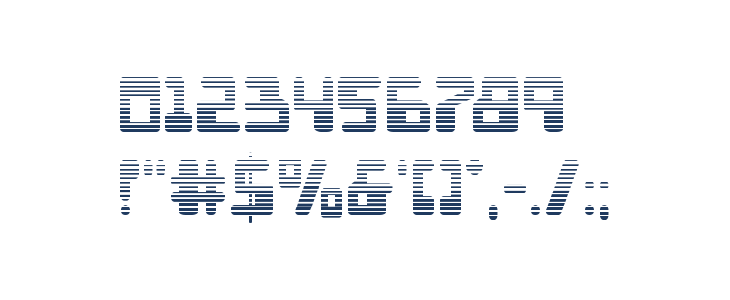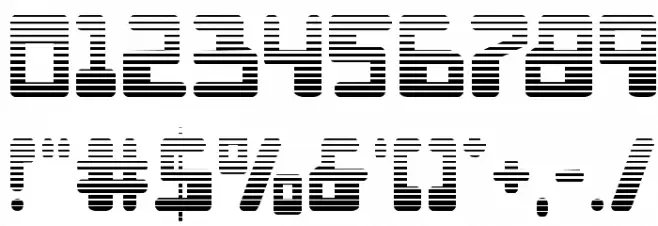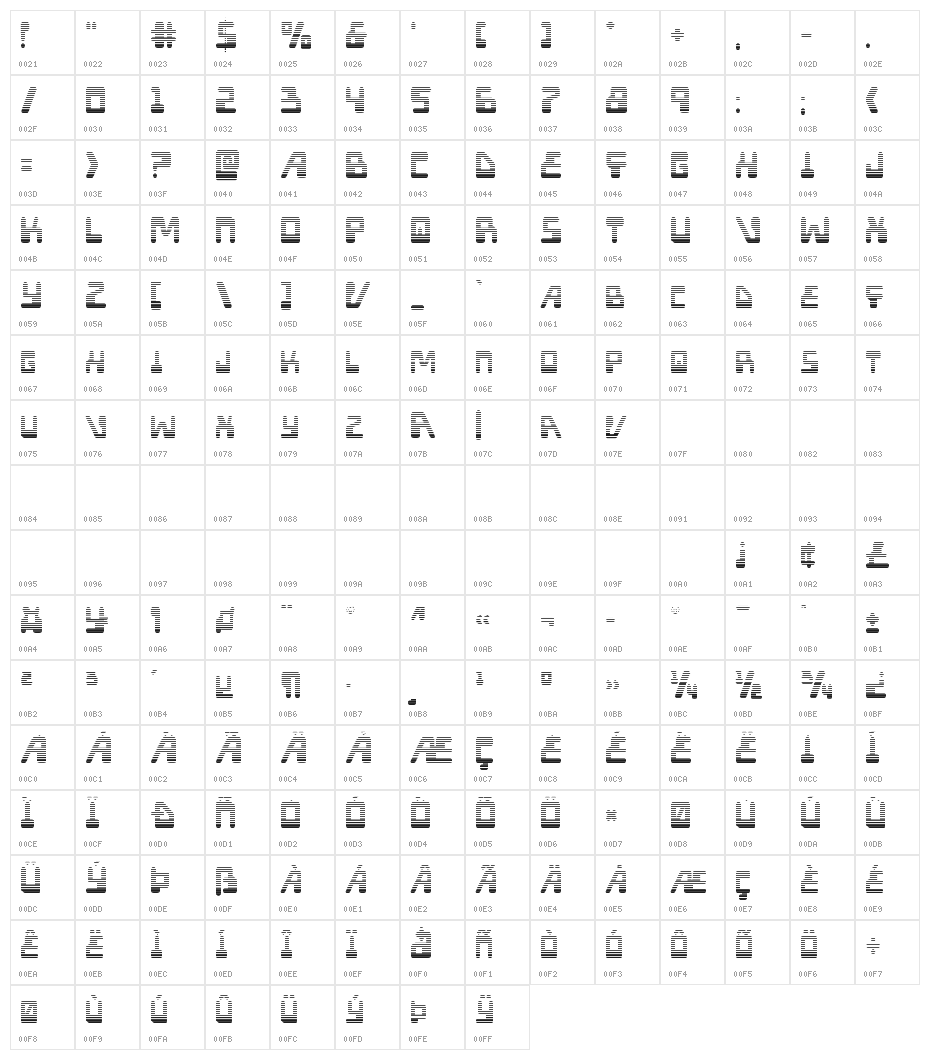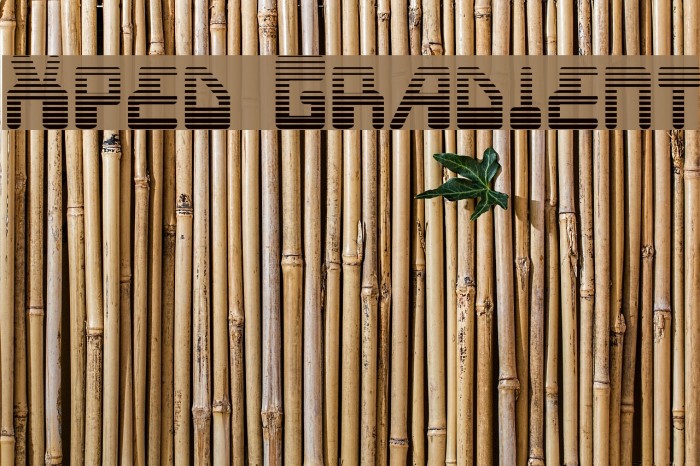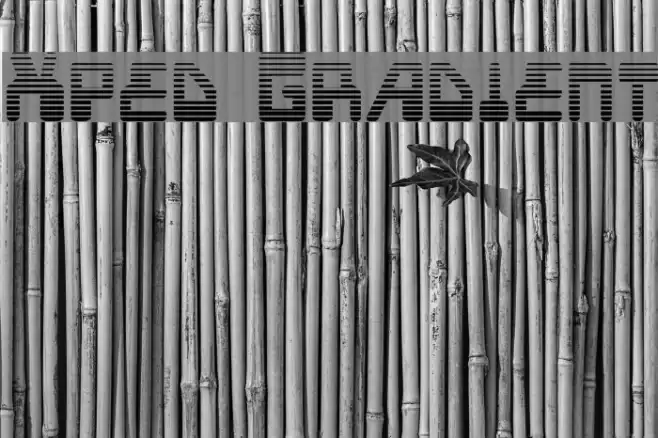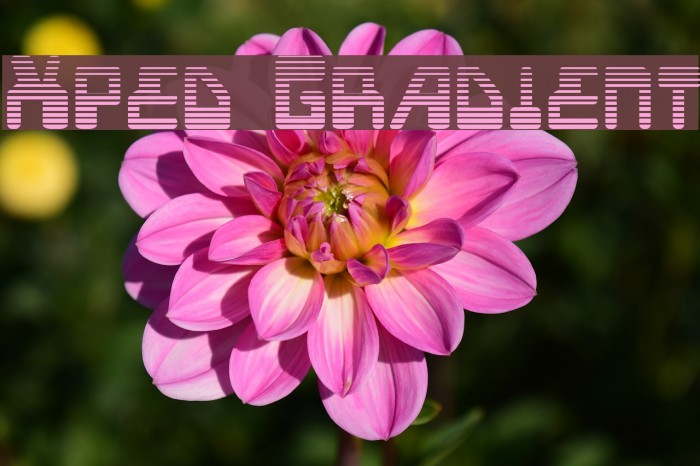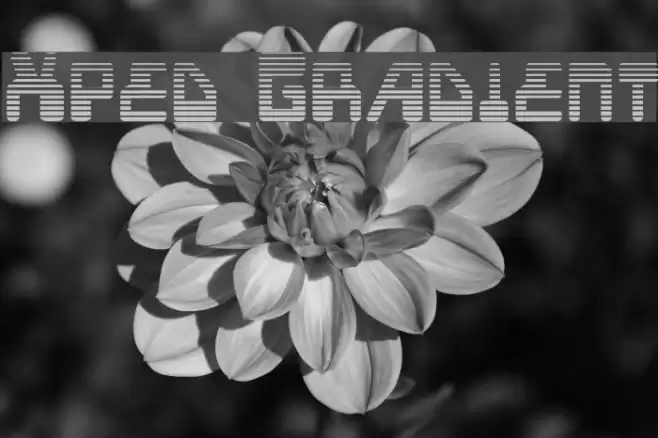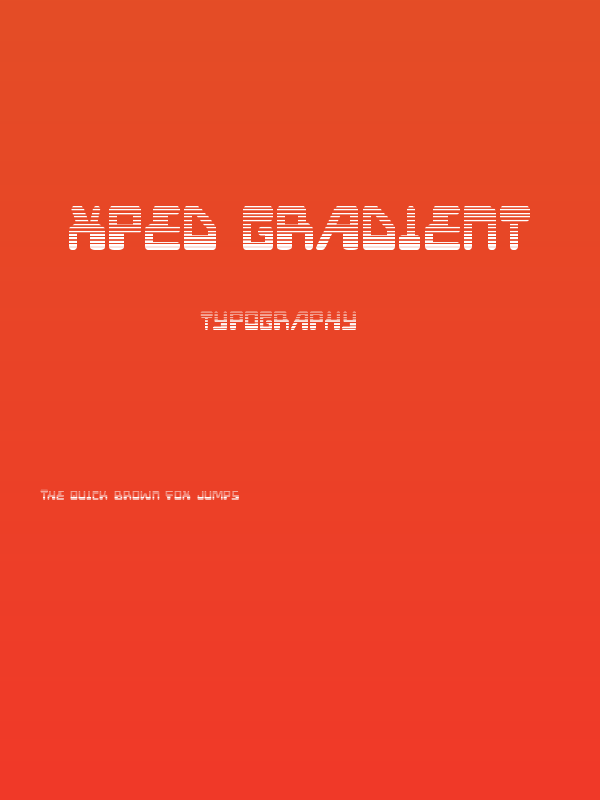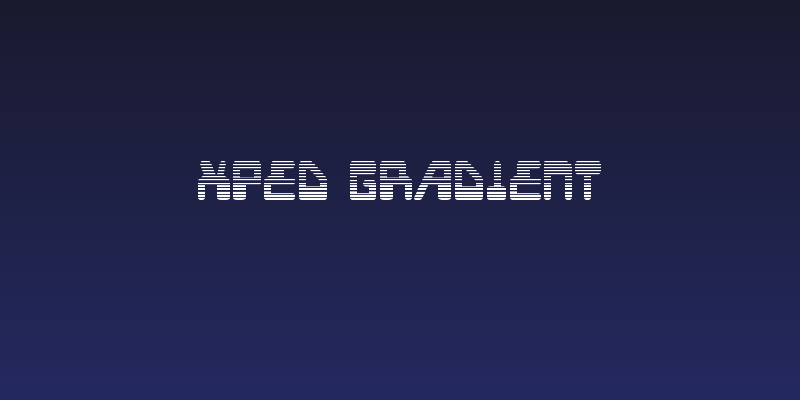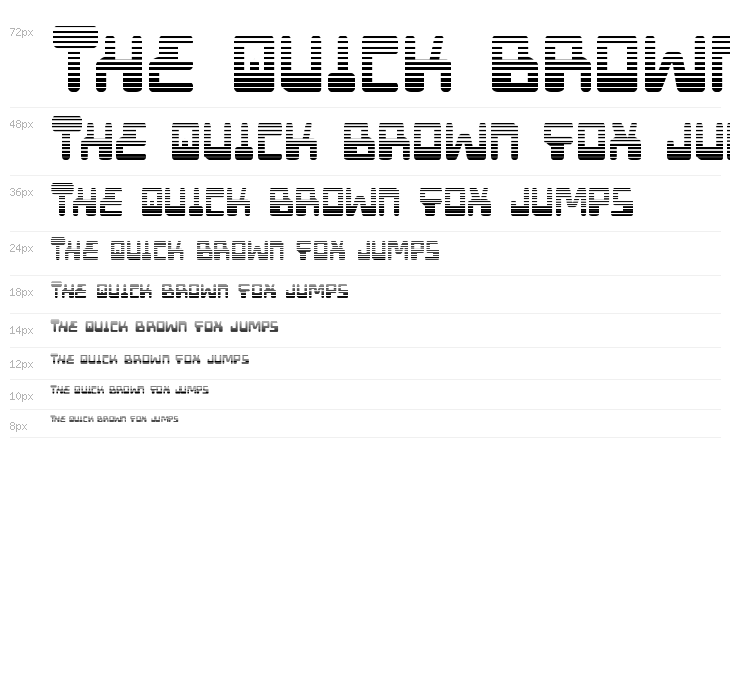
Xped Gradient Font
Xped Gradient Description
This font features a unique, futuristic design characterized by horizontal lines that create a gradient effect across each character. The letters are bold and geometric, with a distinct digital aesthetic that makes them stand out. The uppercase and lowercase letters maintain a consistent style, while the numerals and special characters complement the overall design. The font's structure is both modern and innovative, making it ideal for projects that require a tech-savvy or avant-garde look. The spacing between characters is tight, enhancing the compact and cohesive appearance of the text.
| Proposed Projects | Ideal for tech branding, digital media, futuristic posters, and video game graphics. |